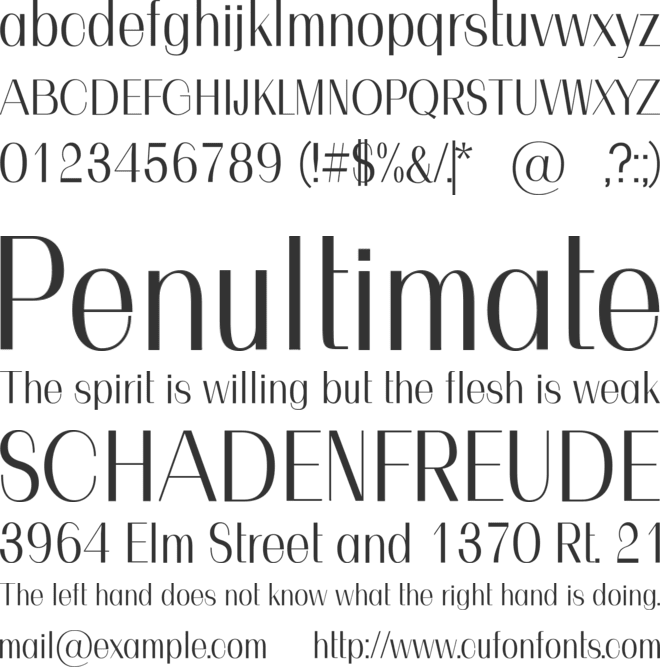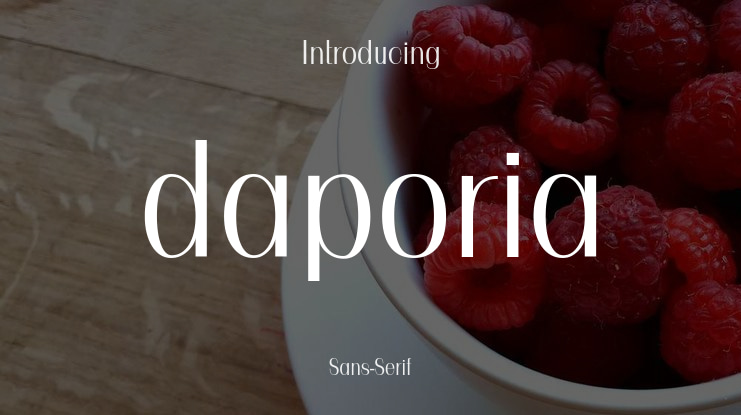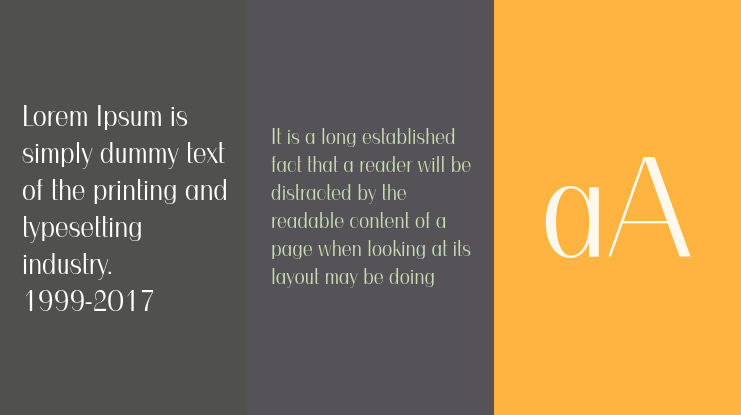
daporia Font Family
🎨 Font Name: DAPORIA by Minimalist Art Studio
🎨 Font description: Daporia is a delicate sans serif with multilingual support—ideal for modern branding, minimalist packaging, and editorial elegance.